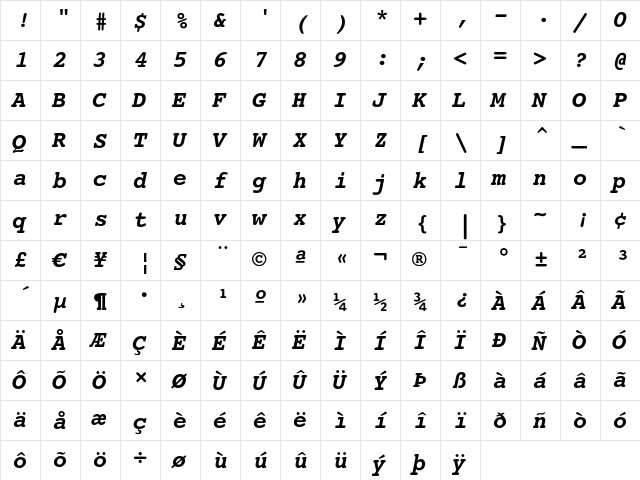
Courier 10 Pitch Bold Italic Font Preview
Design Context for Courier 10 Pitch Typeface
Courier 10 Pitch brings the precise, column-aligned rhythm of monospaced typography to designs that value technical clarity and systematic order. The dynamic lean of this cut emphasises speed and emphasis in any layout. Its bold stroke weight gives it real presence on the page.
Pro Tip: Pair Courier 10 Pitch with a proportional sans for UI contexts where code-style labels and regular body copy need to coexist.